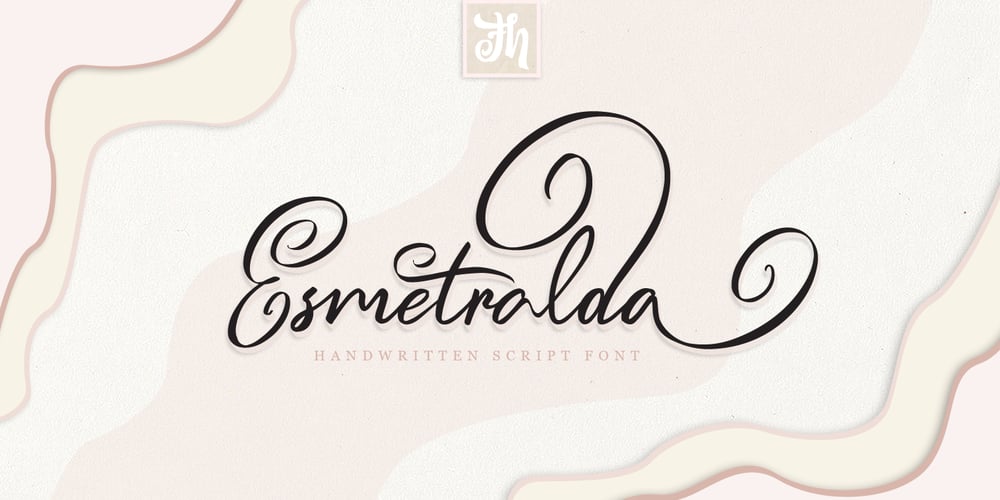
Esmetralda Font Family was designed by Ferry Hadriyan and published by FHFont. Esmetralda contains 1 styles and family package options. Esmetralda is a Modern Calligraphy Script with opentype features included in the font. Suitable for design, element design, wedding, events, t-shirt, logo, badges, sticker, and other awesome work.